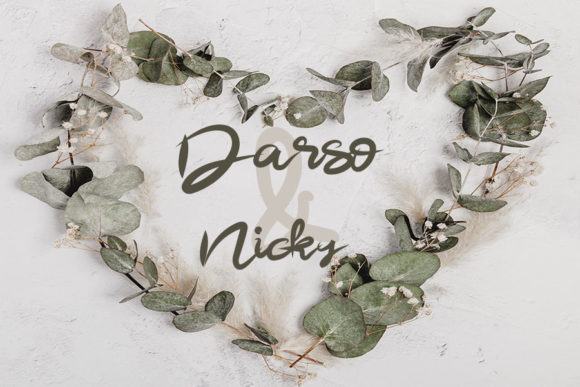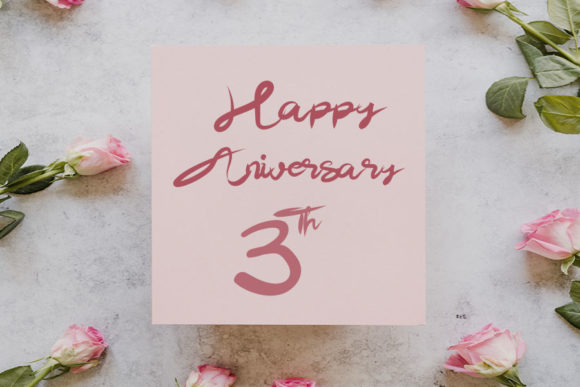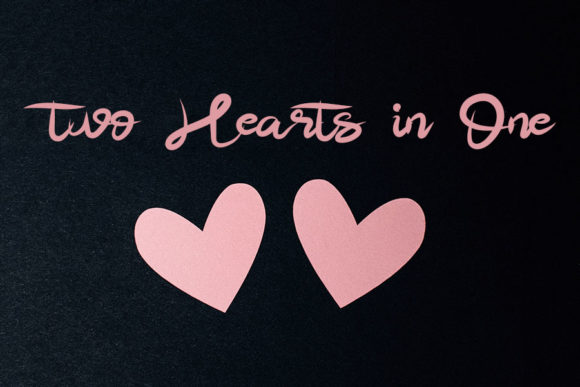
Introducing Flashback Font: A Unique Handwritten Delight
Are you tired of using the same old fonts in your design projects? Look no further than Flashback Font, an incredibly unique handwritten font that’s sure to add a touch of warmth and personality to your work. With its romantic and jolly vibe, Flashback Font is the perfect choice for designers and crafters looking to create something truly special.
The Characteristics of Flashback Font
Flashback Font is a handwritten font that’s full of character. Its unique, flowing script is reminiscent of a bygone era, evoking feelings of nostalgia and romance. The font’s warm and inviting tone makes it perfect for a wide range of design projects, from wedding invitations and greeting cards to branding and packaging.
What Sets Flashback Font Apart
So, what makes Flashback Font so special? For starters, its unique handwritten style sets it apart from more traditional fonts. The font’s creator has poured their heart and soul into crafting a truly one-of-a-kind design that’s both beautiful and functional. Whether you’re looking to add a touch of elegance or a dash of whimsy to your project, Flashback Font is the perfect choice.
Endless Variations at Your Fingertips
One of the best things about Flashback Font is its incredible versatility. With a wide range of variations and alternates to choose from, you can create a unique look that’s all your own. Experiment with different font sizes, colors, and styles to add depth and interest to your design. Whether you’re a seasoned pro or just starting out, Flashback Font is easy to use and fun to work with.
Flashback Font is a dream come true for designers and crafters. Its unique style and versatility make it perfect for a wide range of projects, from digital designs to handmade crafts. Use it to create beautiful stationery, decorate your journal pages, or add a touch of personality to your website or social media graphics.
Tips for Getting the Most Out of Flashback Font
To get the most out of Flashback Font, don’t be afraid to experiment and try new things. Here are a few tips to get you started:
- Mix and match different font sizes and styles to add depth and interest to your design.
- Use Flashback Font in combination with other fonts to create a unique and eye-catching look.
- Don’t be afraid to add your own personal touches, such as doodles or illustrations, to make your design truly special.
In conclusion, Flashback Font is an incredibly unique and versatile handwritten font that’s perfect for designers and crafters. With its warm, romantic, and jolly vibe, it’s sure to add a touch of personality to any design project. So why wait? Download Flashback Font today and start exploring its endless variations!
Key Features of Flashback Font
- Unique handwritten font with a warm, romantic, and jolly vibe
- Perfect for a wide range of design projects, from wedding invitations to branding and packaging
- Incredibly versatile, with a wide range of variations and alternates to choose from
- Easy to use and fun to work with, even for beginners
- Perfect for designers and crafters looking to add a touch of personality to their work